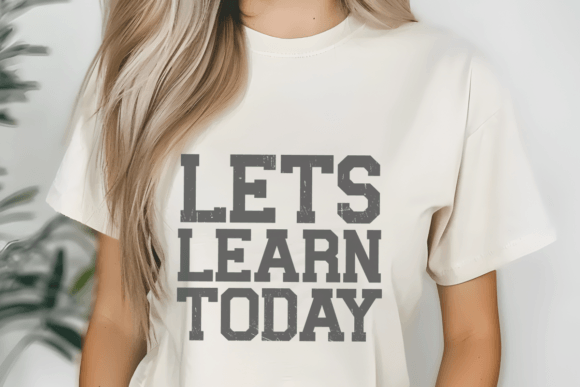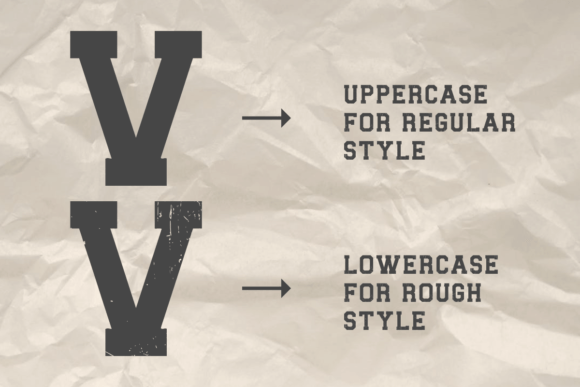
School Varsity Font
Introducing School Varsity, a sleek and stylish display font imbued with a distinctive textured finish. With its signature slap-style letters and unmistakable sports motif, it’s equally befitting for the adventurous back-to-school themes. School Varsity boasts uppercase characters in a refined regular style while its lowercase counterparts capture attention with their unique rough texture. Engage your audience with the dynamism of its numbers and punctuation.
Beyond its use in sport-centric designs, School Varsity resonates with the spirit of traditional college-type fonts, its sharp-edged letters a tribute to time-honored academic aesthetics.
From crafting team jerseys and throwing the perfect party through invitation design to fulfilling home décor aspirations, School Varsity’s robust features bring a wow factor to every project, making a statement that simply can’t be ignored.